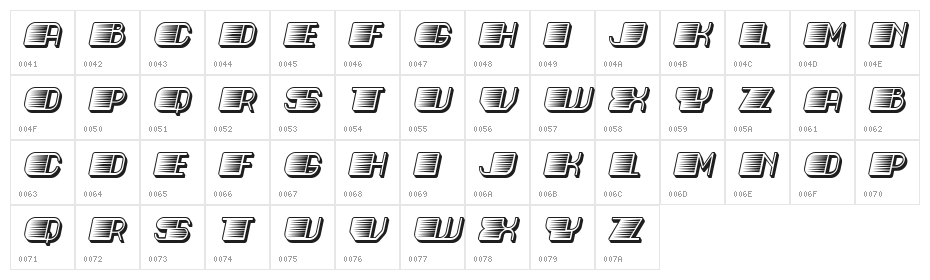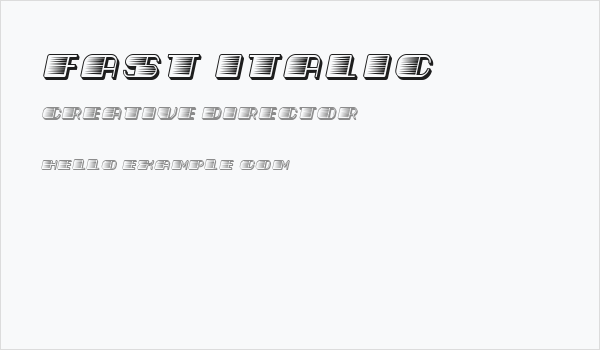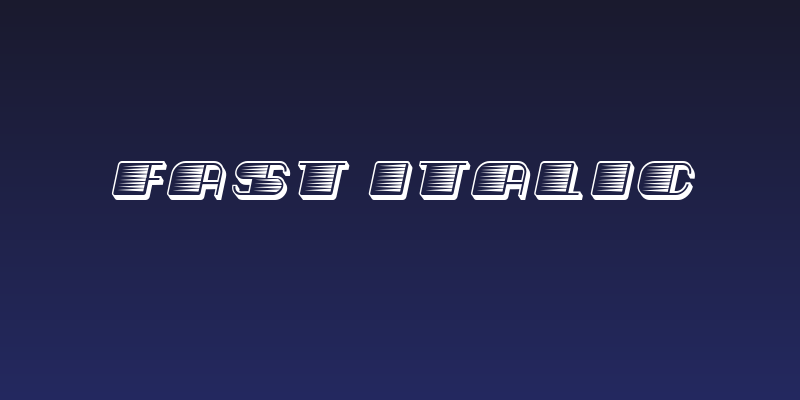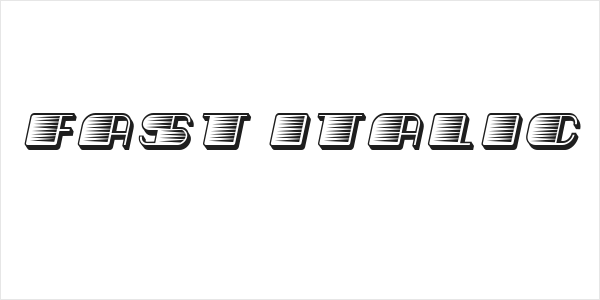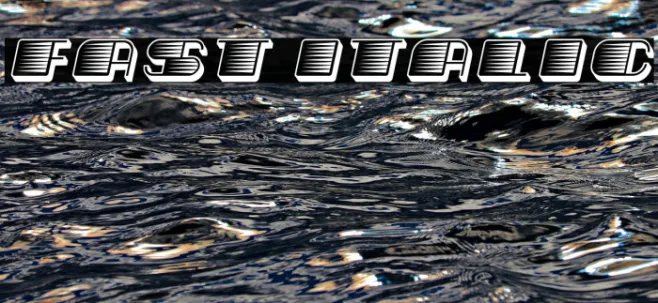
Fast Italic Font
Fast Italic Description
This font features a dynamic and modern design with an italicized slant, giving it a sense of speed and motion. The characters are bold and have a distinct striped pattern that adds depth and texture. Each letter is outlined, enhancing its visibility and making it stand out. The font maintains a consistent width across all characters, contributing to a uniform appearance. The unique style is suitable for projects that require a futuristic or sporty aesthetic, making it ideal for branding, advertising, and digital media.
| Use Case | Logos, Headlines, Advertising |
| Proposed Projects | Ideal for sports branding, futuristic designs, digital media, and advertising campaigns. |